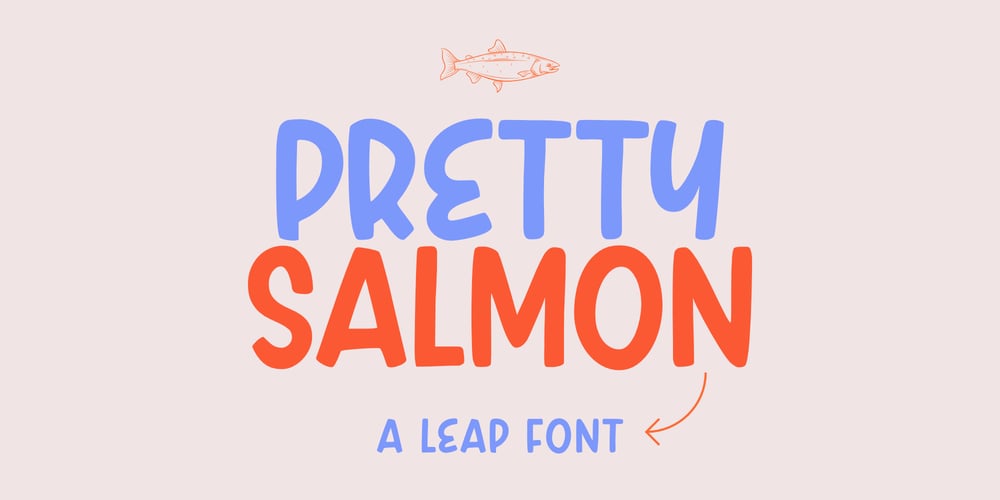
Pretty Salmon
Pretty Salmon font
Pretty Salmon Font Family was designed by Ali Hamidi and published by Ali Hamidi. Pretty Salmon contains 1 styles and family package options. Pretty Salmon is a display font that can be used for all chalkboard quotes or teaching material! Its authentic look and feel will add a personal and realistic feel to your designs.